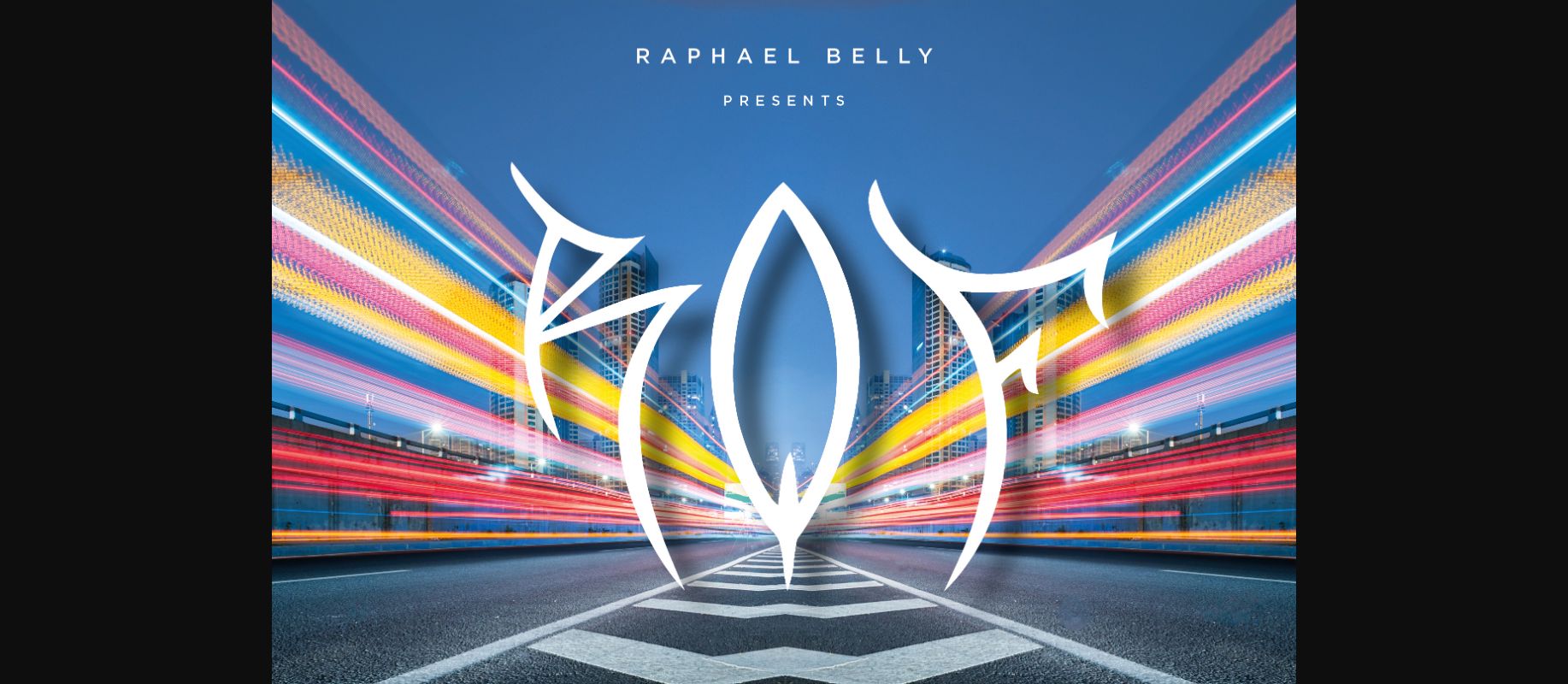
RQF Font
About RQF Font
“RQF is an urban font, suitable for giving your designs a street feel. This font is both artistic and modern, perfect for giving your designs an urban, city inspired intention.”